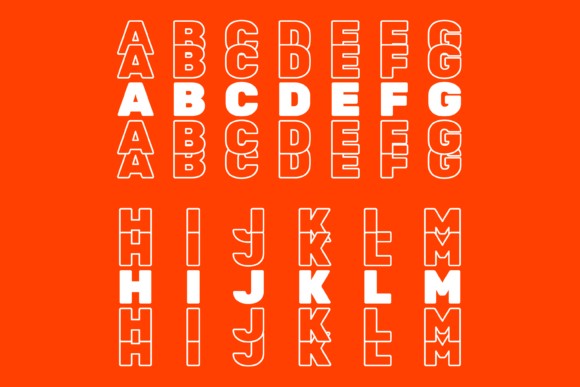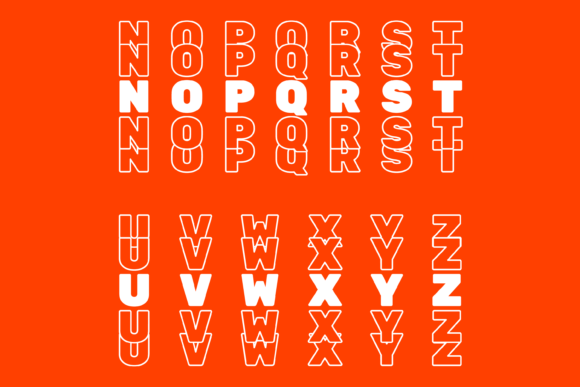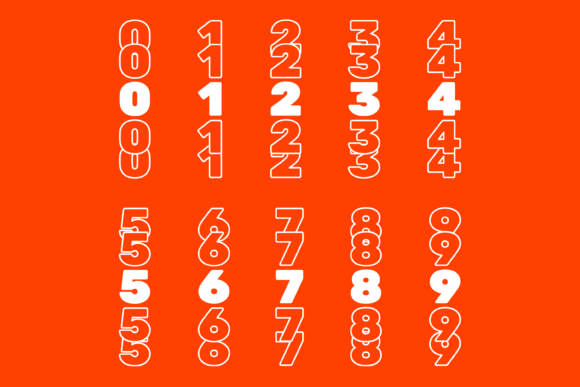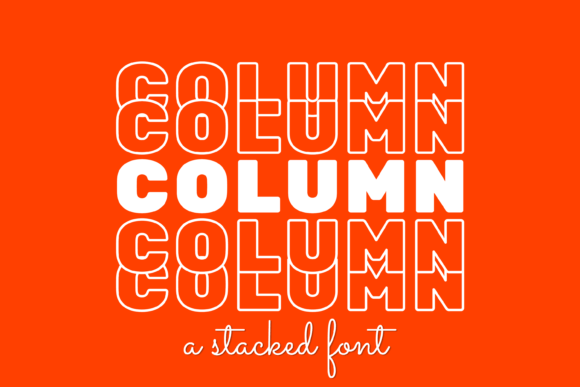
Discover the Charm of Column Font: Elevate Your Designs with a Lovely Touch
Are you on the hunt for a font that adds a unique and captivating flair to your designs? Look no further than Column Font. This stunning typeface has been making waves in the design community, and for good reason. Column Font is an incredibly cool font that can instantly elevate your custom designs, DIY crafts, and any creation that requires a lovely touch.
What Makes Column Font So Special?
Column Font boasts a distinctive style that sets it apart from other fonts. Its elegant and refined appearance makes it perfect for a wide range of applications, from digital designs to handmade crafts. Whether you’re creating invitations, greeting cards, or social media graphics, Column Font is sure to make your work stand out.
Key Features of Column Font
- Unique and Eye-Catching Design: Column Font features a one-of-a-kind design that’s sure to grab attention. Its intricate details and elegant lines make it perfect for designs that require a touch of sophistication.
- Versatile and Adaptable: This font is incredibly versatile and can be used for a wide range of applications, from digital designs to print materials.
- Easy to Read and Understand: Despite its intricate design, Column Font is surprisingly easy to read and understand, making it perfect for body text and captions.
- Scalable and Flexible: Column Font is highly scalable, making it perfect for designs that require a font to be resized without losing its elegance.
How to Use Column Font in Your Designs
Why Designers and Crafters Love Column Font
Column Font has quickly become a favorite among designers and crafters, and for good reason. Here are a few reasons why:
- Unique and Creative: Column Font offers a unique and creative way to express yourself through your designs.
- Elegant and Refined: This font adds an elegant and refined touch to any design, making it perfect for projects that require a level of sophistication.
- Easy to Use: Column Font is incredibly easy to use, making it perfect for designers and crafters of all skill levels.